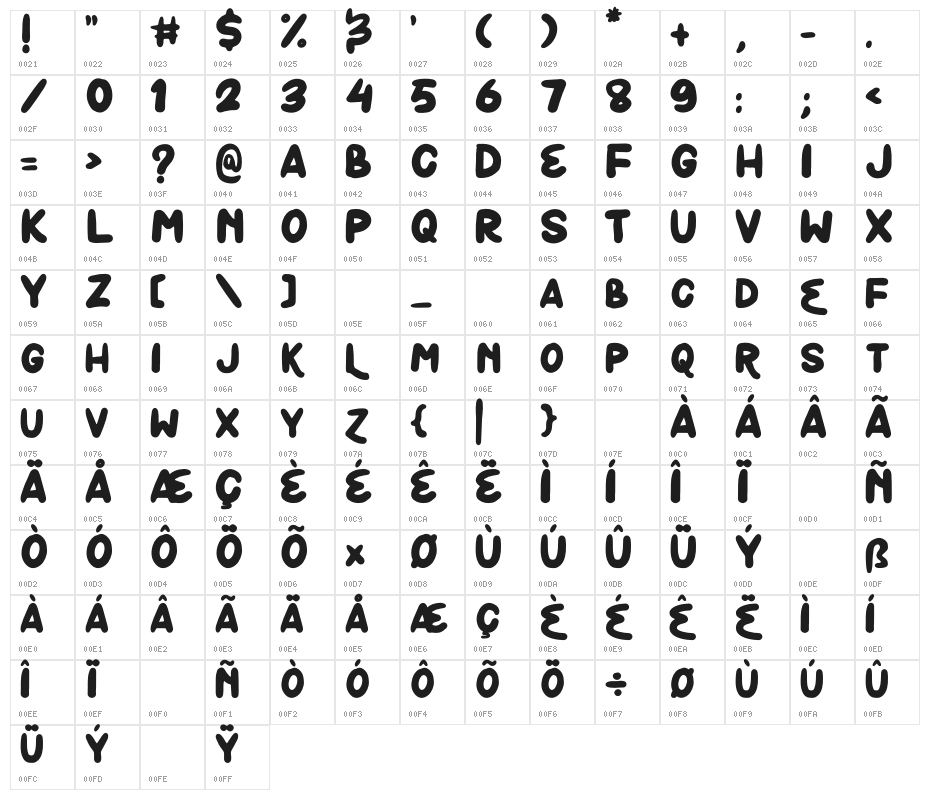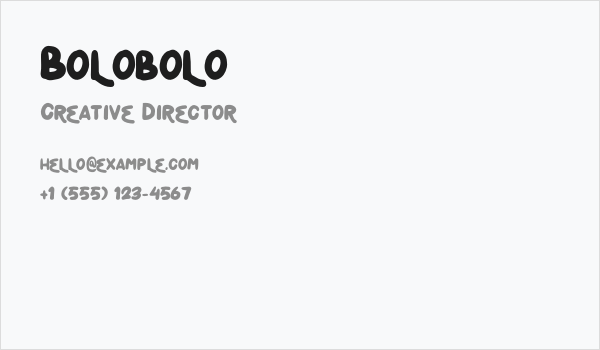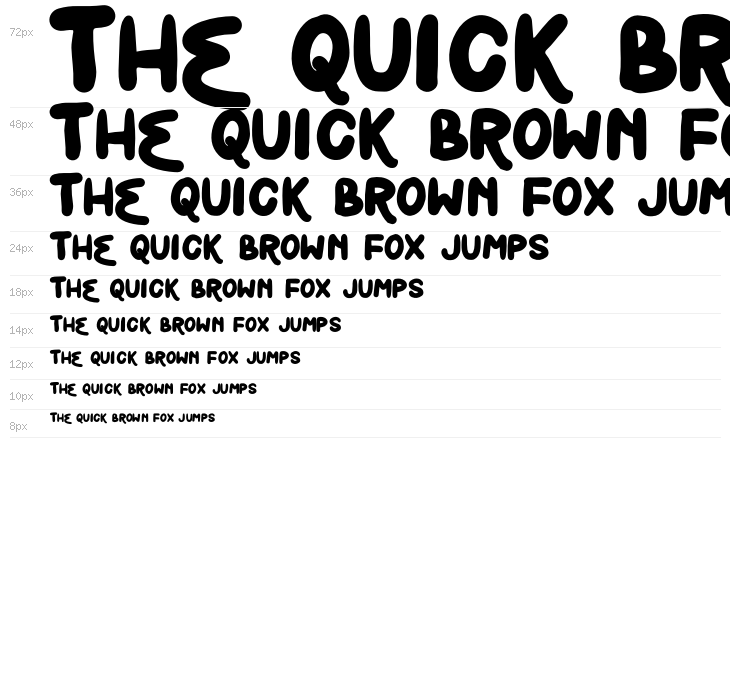
Bolobolo Font
Bolobolo Description
This playful and bold font features thick, rounded strokes that give it a friendly and approachable appearance. The characters are uniformly bold, with a consistent weight throughout, making it highly legible even at smaller sizes. The rounded edges and slightly irregular shapes add a touch of whimsy, making it suitable for creative and informal applications. The numbers and special characters maintain the same playful style, ensuring consistency across all text elements.
| Proposed Projects | Ideal for children's books, playful branding, posters, and social media graphics. |